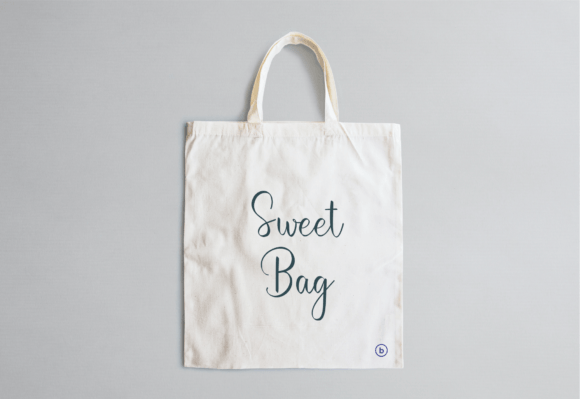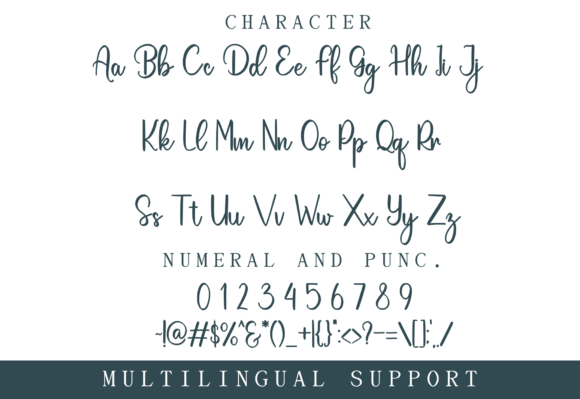
Dewa Font
Add a sweet and delicate touch to your creative projects with the Dewa font. This dainty and joyful handwritten script is perfect for designs that need a romantic and personalized feel. Whether you’re creating wedding invitations, greeting cards, or other heartfelt projects, Dewa is an excellent choice.
The Dewa font features soft, flowing strokes that bring elegance and warmth to any design. Its delicate style makes it suitable for various creative projects. This font helps your work feel intimate, charming, and inviting.
You can use the Dewa font for wedding invitations, greeting cards, romantic quotes, and many other designs that require a tender touch. Its graceful yet clear appearance is ideal for connecting with audiences through a natural handwritten style. This font is perfect for anyone looking for a beautiful and romantic handwritten script.
Despite its delicate design, the Dewa font offers excellent readability at various sizes. Whether used for elegant headlines or smaller text, it guarantees clarity and sophistication.
Using the Dewa font will add a heartfelt and inviting character to your projects. If you want a handwritten font that’s sweet, delicate, and versatile, this font is a great addition to your collection.
In summary, the Dewa font is a sweet, delicate, and romantic handwritten script. Perfect for wedding invitations, greeting cards, and many other romantic designs, it brings warmth and charm to every project. Download it today and make your creative work truly special with Dewa.